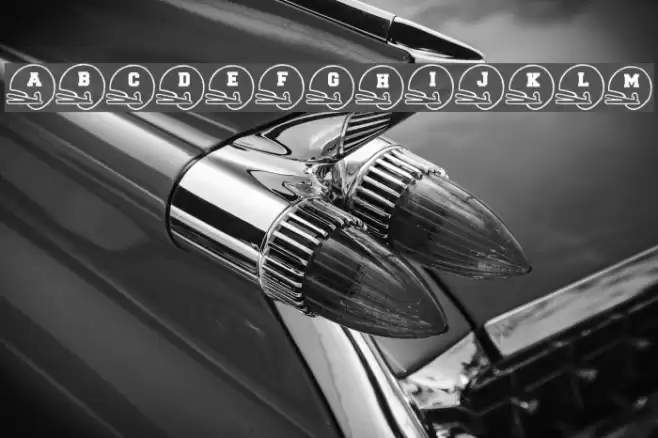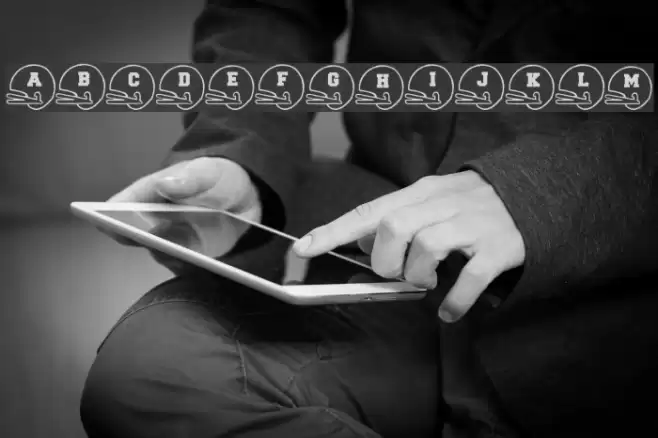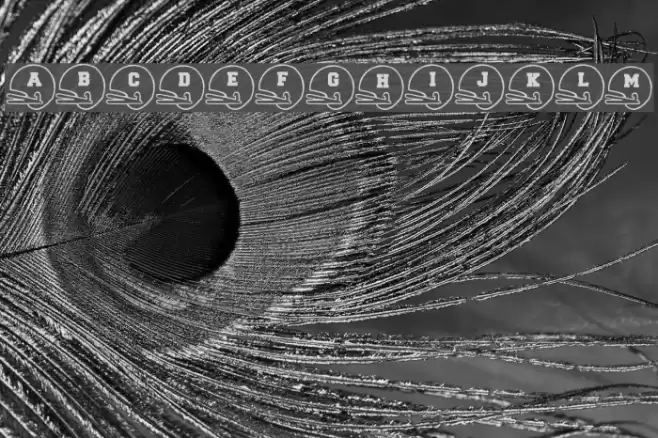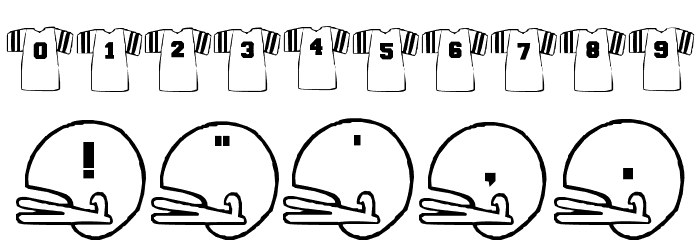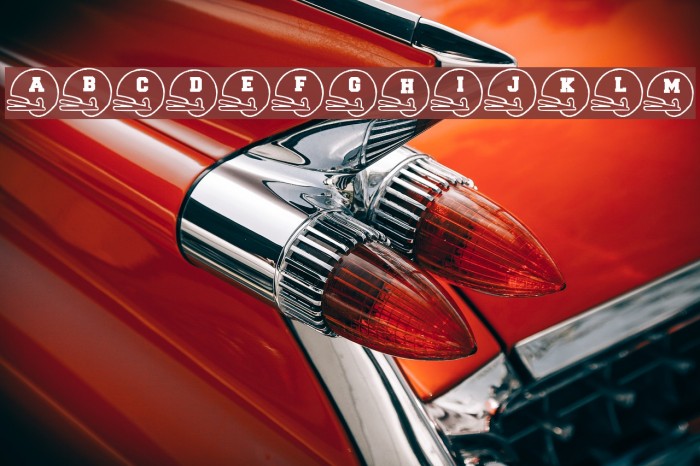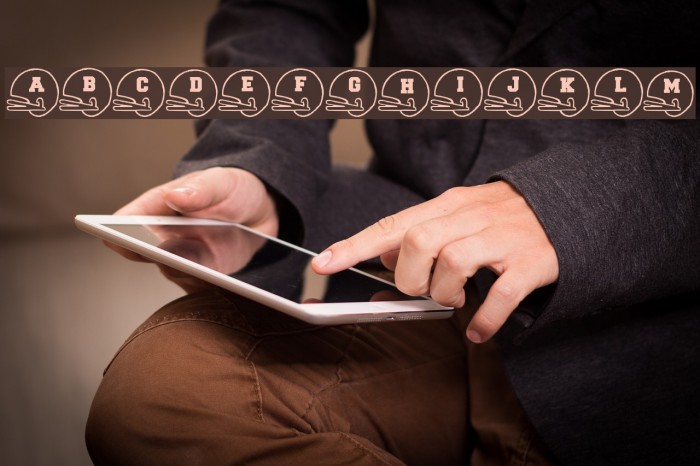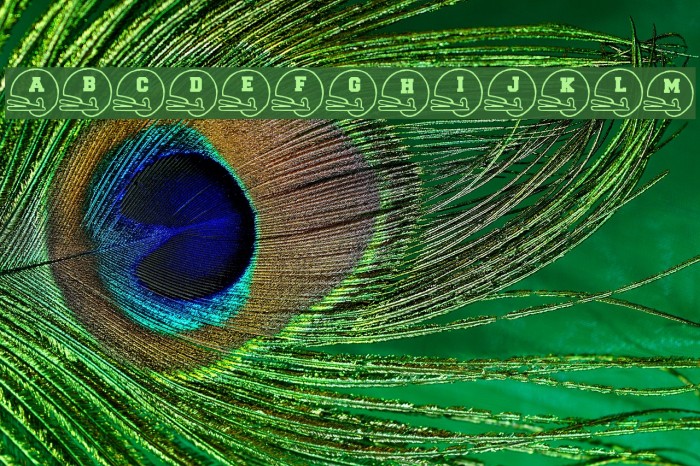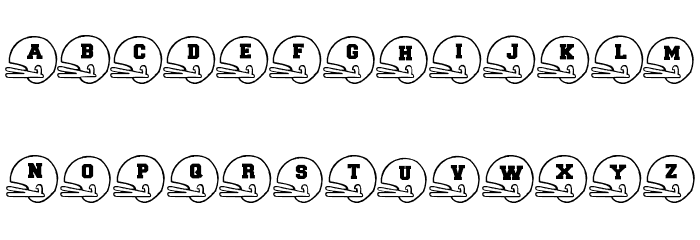
BJFootball Font
BJFootball Description
This font features a unique sports-themed design where each letter is embedded within a football helmet, and numbers are displayed on football jerseys. The style is bold and playful, capturing the essence of American football culture. The uppercase letters are prominently displayed, while the numbers are creatively integrated into jersey designs, adding a dynamic and thematic touch. Special characters are also incorporated into the helmet design, maintaining consistency across the set. This font is ideal for projects that aim to evoke a sporty, energetic, and fun atmosphere.
A sports-themed font with letters in helmets and numbers on jerseys from Uncategorized fonts.
- Proposed Projects: Ideal for sports event posters, team merchandise, themed party invitations, and playful branding projects.
- Overall Style: Playful, Sporty
- Use Case: Headlines, Logos, Themed Events